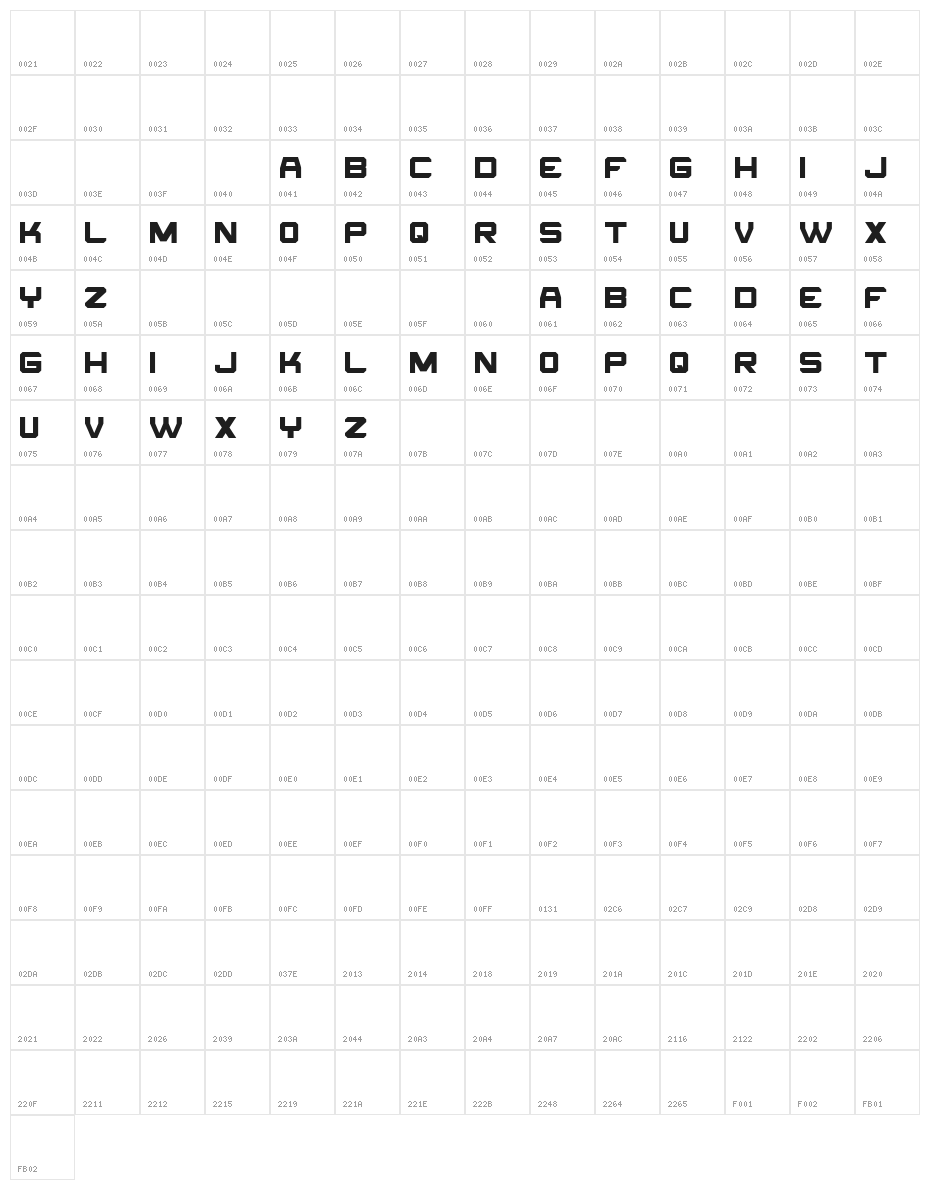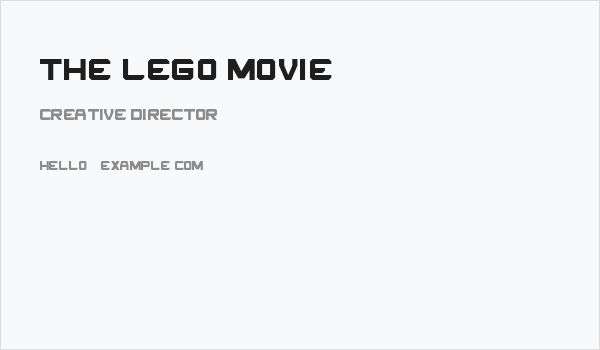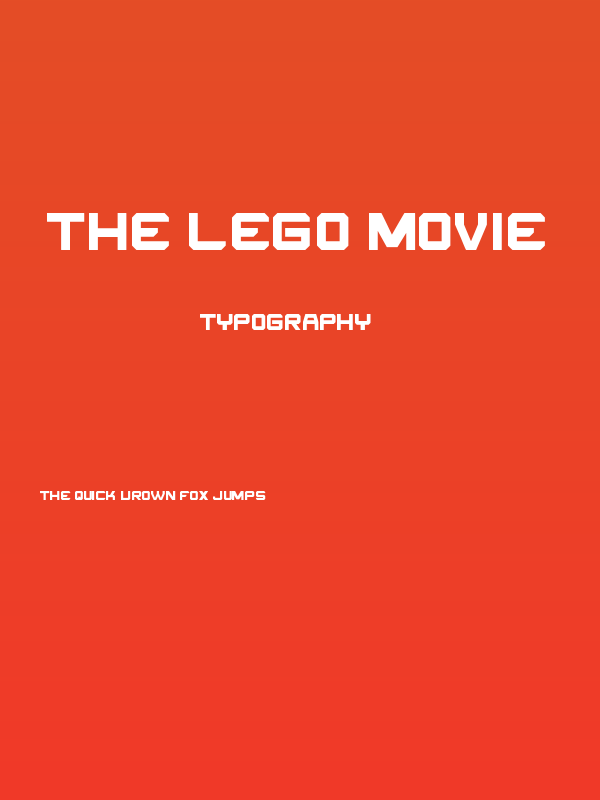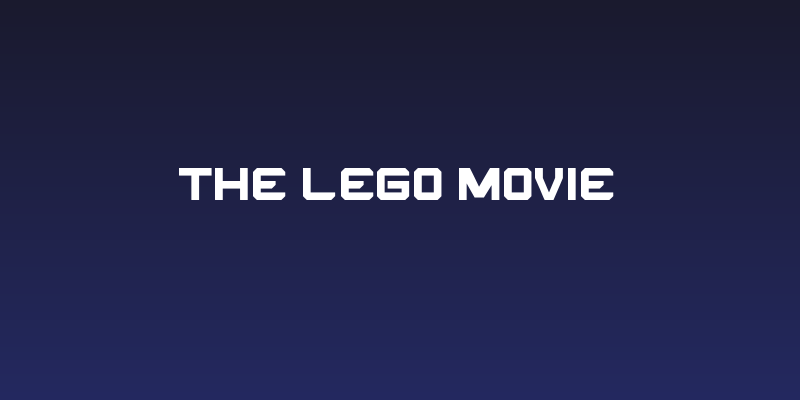
THE LEGO MOVIE Font
THE LEGO MOVIE Description
This font features a bold, geometric style with a blocky appearance, reminiscent of construction and building themes. The characters are uniformly thick, with sharp angles and straight lines, creating a modern and industrial look. The uppercase letters are consistent in height and width, providing a cohesive and structured feel. The font's design is clean and straightforward, making it highly legible and suitable for various applications that require a strong visual impact.